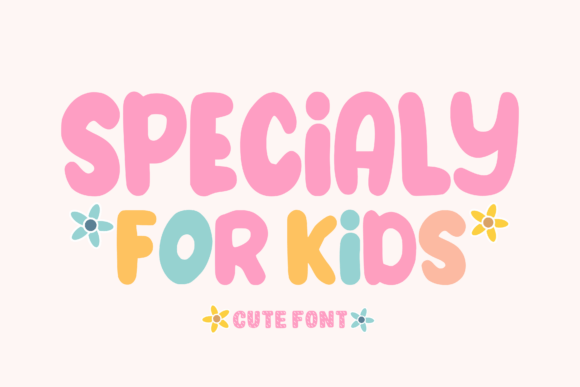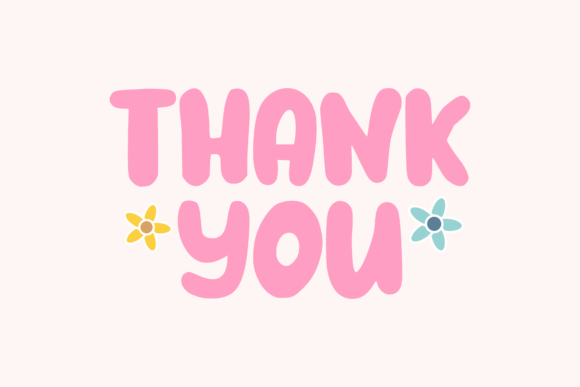
Introducing Happy Mama Font: The Cheerful and Playful Typeface for Your Designs
Are you looking for a font that can add a touch of warmth and playfulness to your designs? Look no further than Happy Mama Font! This delightful typeface is designed to convey a cheerful and loving message, making it perfect for use in social media, comics, invitations, and other digital design works.
The Characteristics of Happy Mama Font
Happy Mama Font is a sans-serif typeface with rounded corners that give it a friendly, elegant, and playful impression. The font’s rounded edges and smooth curves create a soft and approachable feel, making it perfect for designs that require a gentle and caring touch.
One of the standout features of Happy Mama Font is its expressive and colorful letter style. Each letter is carefully crafted to add joy and warmth to your designs, creating a unique and attractive impression that will leave a lasting impact on your audience.
Why Choose Happy Mama Font?
There are many reasons why Happy Mama Font is an excellent choice for designers and crafters. Here are just a few:
- Versatility: Happy Mama Font is versatile and can be used in a wide range of design projects, from social media graphics to comics, invitations, and more.
- Emotional Connection: The font’s cheerful and playful style creates an emotional connection with your audience, making your designs more relatable and engaging.
- Unique Style: The font’s unique and colorful letter style sets it apart from other typefaces, ensuring that your designs stand out from the crowd.
Perfect for Digital Design Works
Happy Mama Font is specifically designed for digital design works, making it perfect for:
- Social Media Graphics: Use Happy Mama Font to create eye-catching social media graphics that will grab the attention of your followers.
- Comics and Illustrations: The font’s playful style makes it perfect for use in comics and illustrations that require a cheerful and lively touch.
- Invitations and Party Decor: Happy Mama Font is ideal for creating invitations, party decorations, and other festive materials that require a playful and celebratory feel.
Tips for Using Happy Mama Font
Here are some tips for getting the most out of Happy Mama Font:
- Experiment with Colors: The font’s colorful letter style looks great with bright and bold colors. Experiment with different color combinations to create unique and eye-catching designs.
- Mix and Match: Don’t be afraid to mix and match Happy Mama Font with other typefaces to create interesting and dynamic designs.
- Use it for Headings: Happy Mama Font is perfect for use in headings and titles, where its playful style can add a touch of personality to your designs.
In conclusion, Happy Mama Font is a cheerful and playful typeface that is perfect for designers and crafters looking to add a touch of warmth and playfulness to their designs. With its expressive and colorful letter style, versatility, and ease of use, Happy Mama Font is an excellent choice for a wide range of design projects. So why not give it a try and see how it can elevate your designs to the next level?